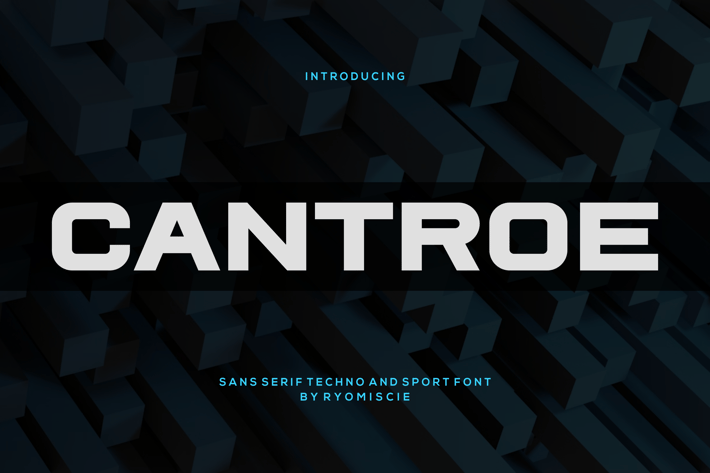
Cantroe - Techno And Sport Font
Introducing our new product Cantroe Font - Modern Font
Cantroe Font - Modern Font is a bold and authentic display font. The font is suitable for any branding project like logo,
t-shirt printing, esport, and many more. outstanding in a wide range of contexts.